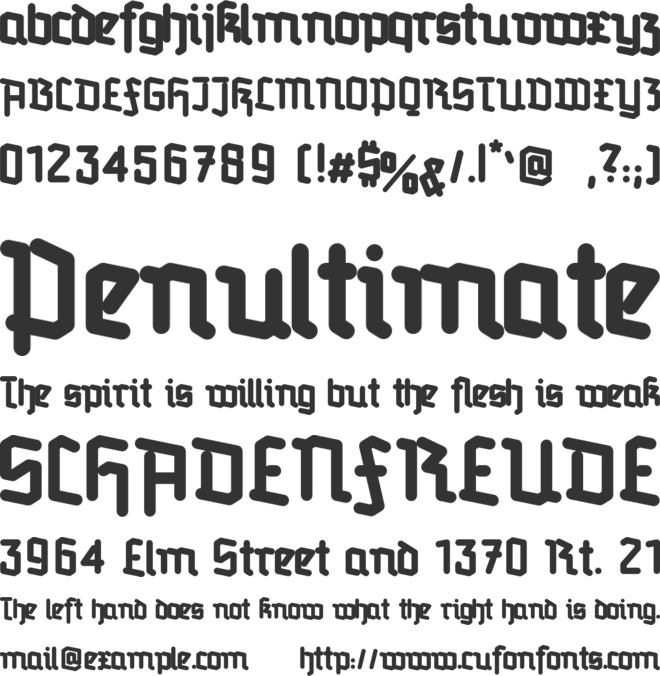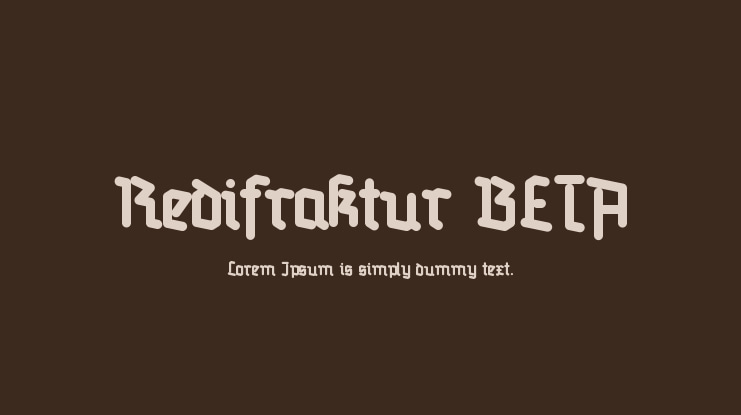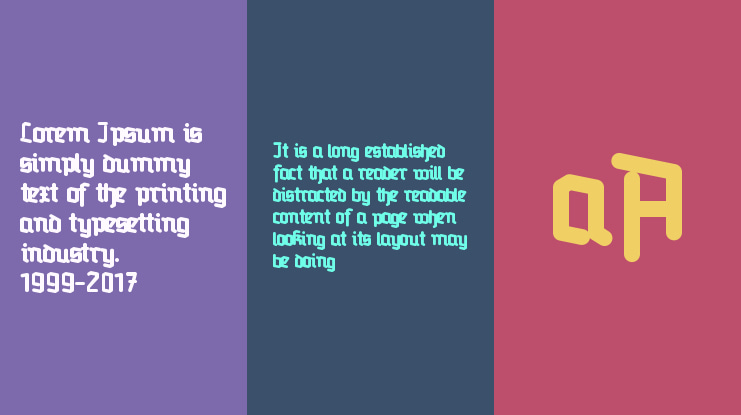
The RediFraktur font is a variation of the gothic script (fraktur), written by using the pen nib (redis). The project is the result of an experiment which aims to create a modern typeface of broken letters.
The traditional gothic alphabet commonly known as gothic is derived from calligraphy and handwriting. Tool that is used to create decorative silhouette giving letters broken arches is a reed stick. Over the years its character has been preserved in printing fonts, moulding its unique structure (Latin frangere - break). Despite the limited readability of the typeface it was widespread in German-speaking and Nordic countries until the middle of the twentieth century. This resulted in Germans perceived it, as their own national German alphabet style. It is also mistakenly linked with Nazism, meanwhile the Nazis themselves associated the letter structure with a Jewish lettering (sic!) and in 1941 ordered replacing it with an antique style. After the Second World War, its importance diminished and it is used only as an ornamental and historical typeface.
The RediFraktur imitates the broken shape of the fraktur using a simulation of a redis pen that gives equal thickness to the rounded lines at its ends. This gives a more modern look and reduces the aggressiveness of the letter's silhouette while maintaining the characteristics of Gothic. It was inspired by the Tanneberg cut that was used until the end of the 1930s in the German railway station markings. The BETA version contains all the characters of the German alphabet, digits and some punctuation marks in the bold variety. In the course of further work it is planned to extend the family with regular and semibold varieties, complementing the ligatures and special characters. More... Design: Jakub Stanski, www.stanski.eu